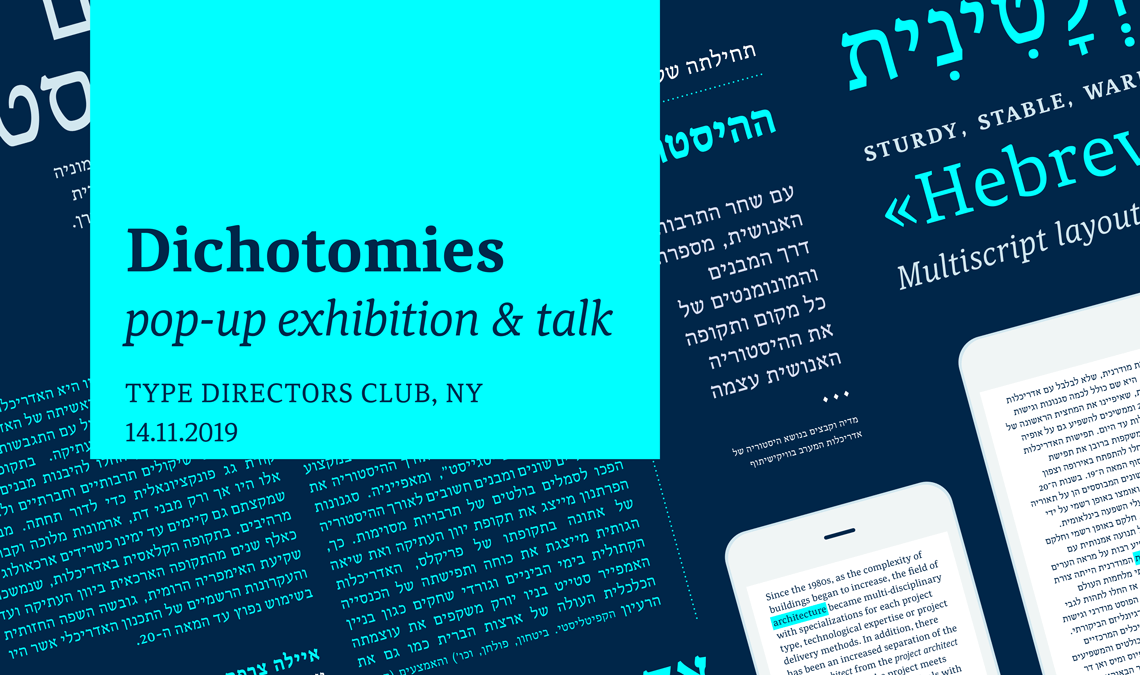
The Story of Noam Text
Adi Stern and Veronika Burian will deliver a talk at the TDC New York (November 14, 2019) to introduce Adi’s typeface Noam Text and to launch the exhibition “Dichotomies: A pop-up poster exhibition”.
We are delighted to introduce Noam Text at TDC New York on 14 November. The event will include the talk “Harmony and Converse: The Story of Noam Text”, delivered by Adi Stern and Veronika Burian, and the launch of the exhibition “Dichotomies: A pop-up poster exhibition” that features the work of 15 talented designers and illustrators.
Adi Stern will introduce the Hebrew script and share his personal and bumpy path of developing his dual-script (Latin–Hebrew) type family Noam Text. Adi decided fifteen years ago to design a font family intended for continuous reading. His goal was to create a typeface able to set newspapers, magazines, and books in the digital and print world. He also recognised a need for a modern dual-script typeface, holding both Latin and Hebrew versions.
Veronika Burian will provide insights on TypeTogether’s dedication to global typography and the particular challenges of developing Noam Text.
The “Dichotomies” exhibition was first launched in Tel Aviv and now travels from Israel to the well known TDC offices in New York. Fourteen designers and illustrators were invited to create a poster using Noam Text, with the task of balancing past with future and heritage with progress in a similar way to Noam Text’s tone, as well as its aesthetic and functional value.